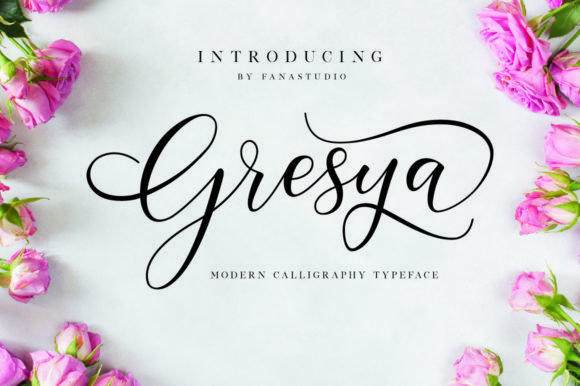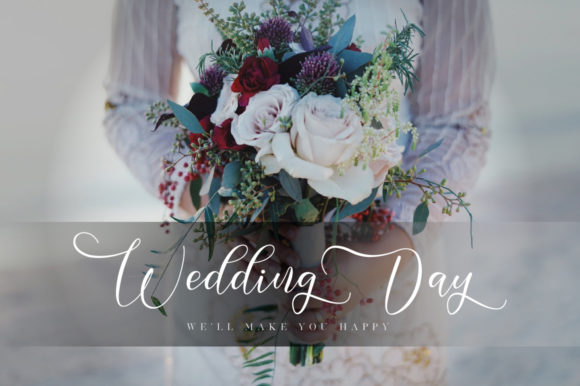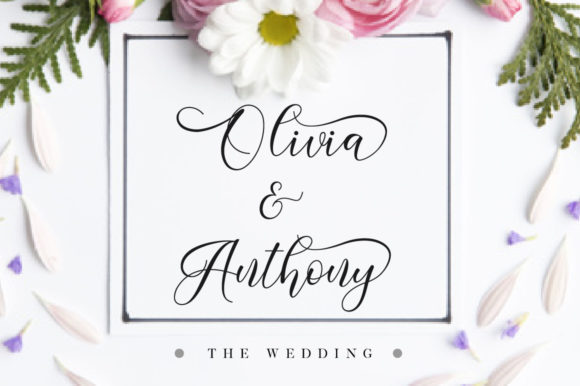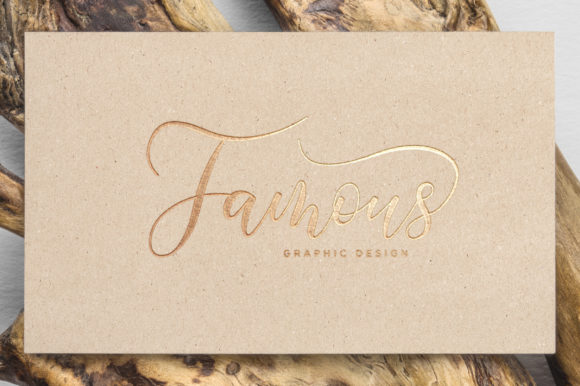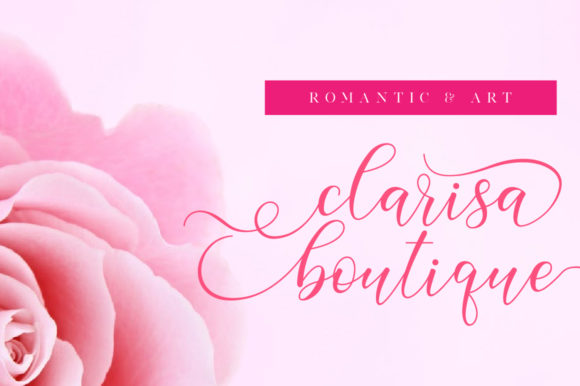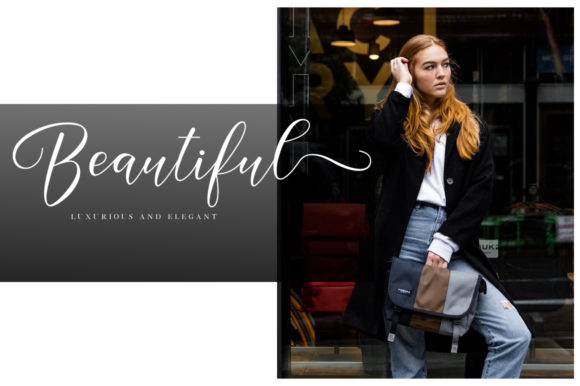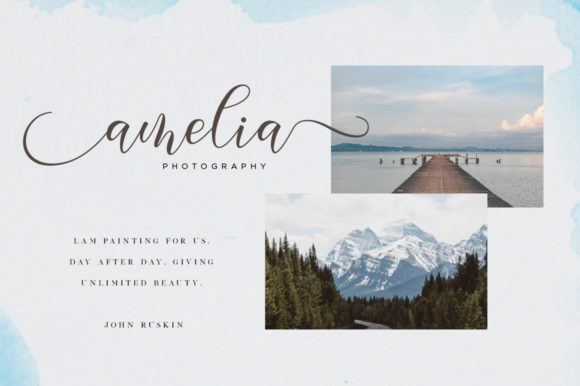
Unleashing the Feminine Touch with Gresya Script Font
There’s nothing quite like the feeling of being inspired by a beautiful font, is there? It’s that moment when the creative juices start flowing, and your imagination runs wild. For many designers, that spark of inspiration can come from the perfect combination of style and elegance – and that’s exactly what the Gresya Script Font delivers.
This stunning script font is designed to add a touch of femininity to any design, from wedding invitations to fashion branding. With its beautiful swashes and flowing lines, the Gresya Script Font is the perfect choice for anyone looking to add a little extra magic to their designs. Whether you’re a seasoned designer or just starting out, this font is sure to become a valuable addition to your toolkit.
So why is the Gresya Script Font so valuable for designers? For one, it offers a level of customization and flexibility that’s hard to find in other fonts. With its range of swashes and variations, you can create unique and eye-catching designs that truly stand out from the crowd.
Gresya Script Font Key Features
- Unique Characteristics: Elegant, cursive script design with a modern twist, ideal for creative and artistic applications
Gresya Script Font Review
As a designer, I’ve had the chance to work with the Gresya Script Font, and I must say it’s a beautiful addition to any project. ✨ The font’s elegant, handwritten feel makes it perfect for creative and artistic endeavors, such as branding, advertising, and publishing. It’s also great for adding a touch of sophistication to digital and print materials.
One of the things that stands out about Gresya Script is its high level of customization. ✨ With over 400 glyphs, you can fine-tune the font to fit your specific needs, whether it’s adjusting the spacing or tweaking the letterforms. This level of control is invaluable for designers who want to create a unique look and feel.
Limits and Considerations
- ⚠️ Limited legibility: While the font is beautiful, it can be difficult to read at smaller font sizes or in low-light environments.
Overall, I’d say Gresya Script is a great choice for designers who want to add a touch of elegance and sophistication to their projects. While it may have some limitations, the font’s customization options and beautiful design make it well worth considering.
Use Gresya Script for:
- Cursive-style titles and headings
- Wedding invitations and event graphics
- Personalized gift tags and cards
For best results, use Gresya Script in combination with a clean, sans-serif font for body text.
Alternatives to Gresya Script Font for Designers
Carolyna Pro is a elegant and refined script font that works well for luxury and high-end branding. It’s perfect for creating a sophisticated and polished look.
Comparison to Gresya Script Font: Carolyna Pro has a more refined and elegant feel compared to Gresya Script Font, which is more playful and cursive. Carolyna Pro is ideal for corporate branding, while Gresya Script Font is better suited for creative and artistic projects.
Great Vibes is a modern and elegant script font that works well for branding and advertising. It’s perfect for creating a fun and energetic vibe.
Comparison to Gresya Script Font: Great Vibes has a more modern and energetic feel compared to Gresya Script Font, which is more classic and cursive. Great Vibes is ideal for creative and innovative projects, while Gresya Script Font is better suited for traditional and artistic projects.